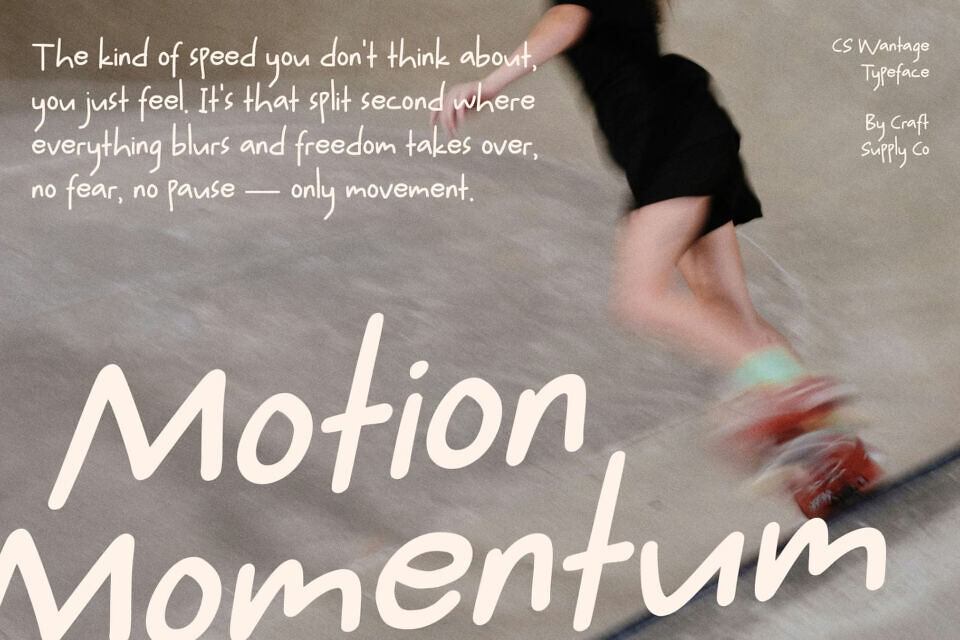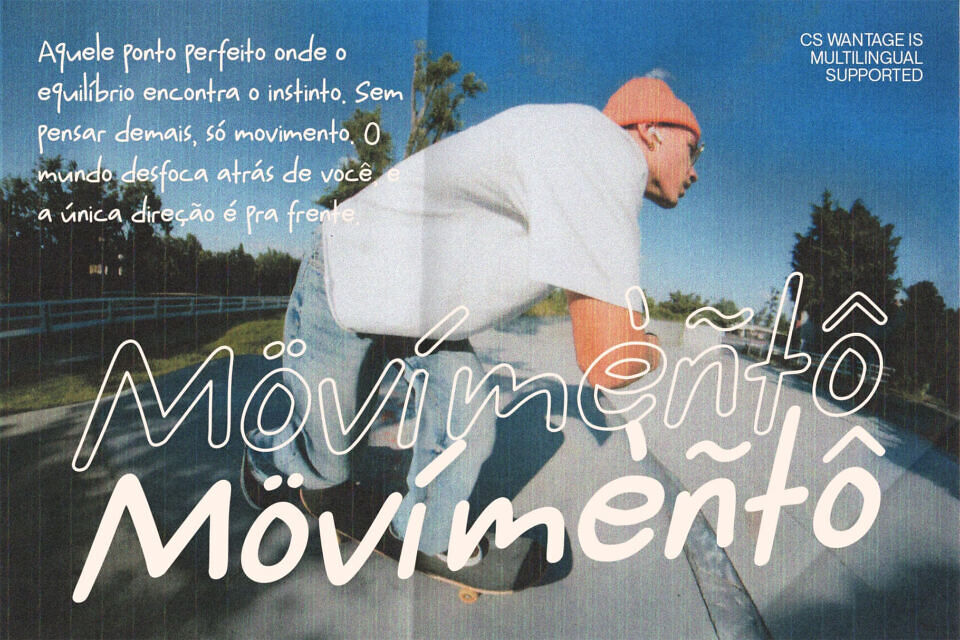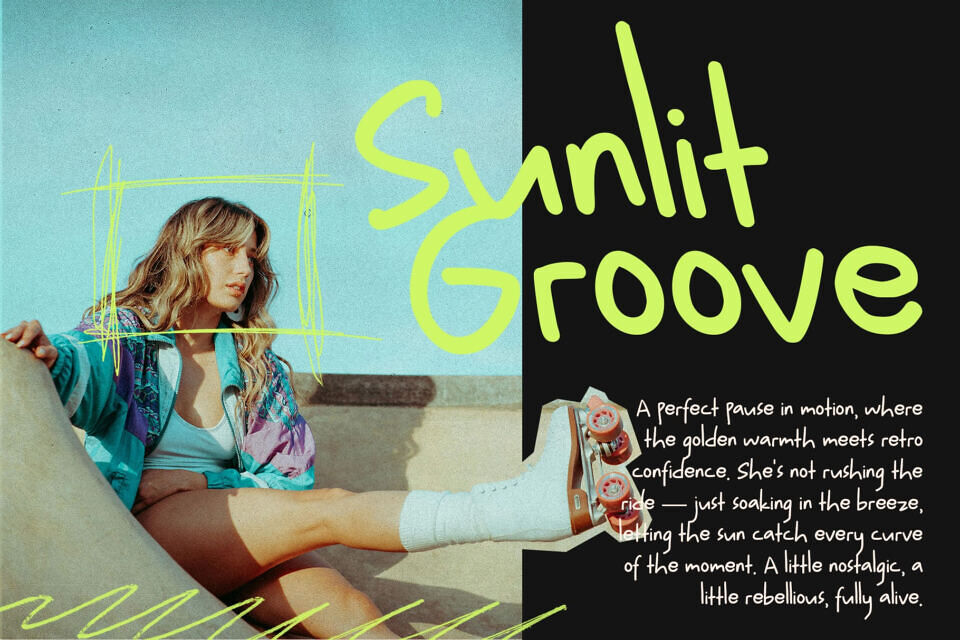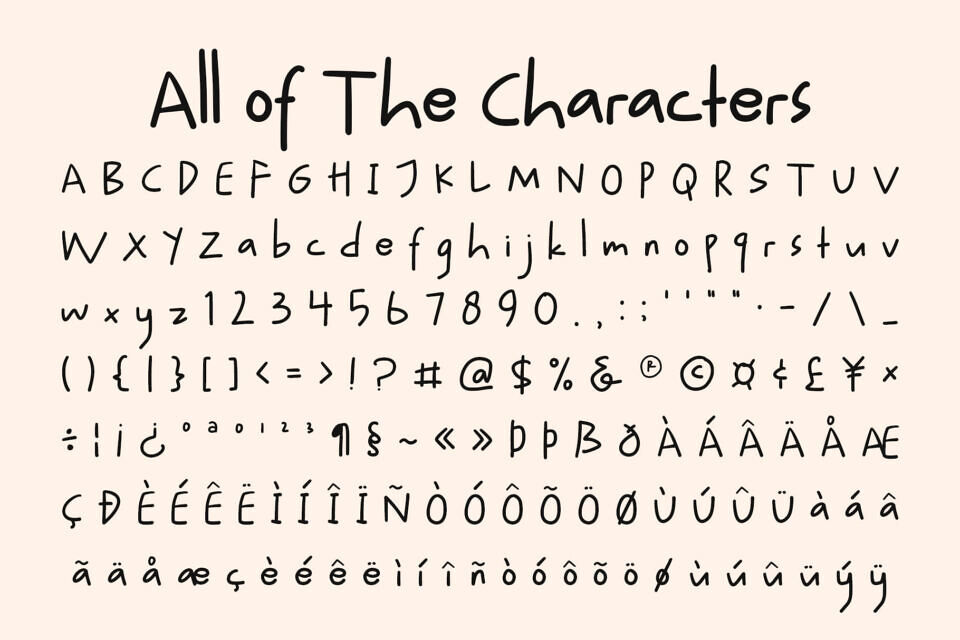
Wantage is a playful and energetic fun font that radiates joy and spontaneity. With its irregular writing style, friendly shapes and sans serif font, this typeface captures the carefree spirit of childhood and creativity. It’s designed to bring a lighthearted, approachable charm to any design project.
Each letter in this font feels alive with motion and character. The uneven strokes and imperfect rhythm give it a hand-drawn authenticity, making it perfect for greeting cards, playful branding, and kid-focused visuals. Whether you’re designing for children’s brands, educational materials, or fun event posters, this font delivers an inviting and cheerful atmosphere.